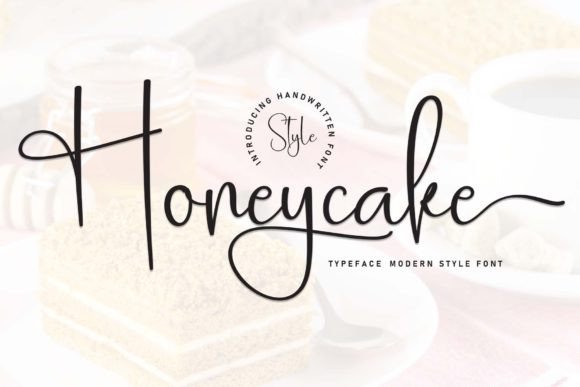
Looking to add a touch of elegance and charm to your designs? Look no further than Honeycake Font, a mesmerizing script font created by andikastudio. This lovely and timeless handwritten font is the perfect choice for creating eye-catching logos, branding, and quotes.
With Honeycake Font, every letter is crafted with a unique and beautiful touch, breathing life into your designs. Its captivating curves and flowing strokes exude a sense of sophistication and grace, making it the ideal companion for any project that aims to leave a lasting impression.
Whether you're a professional designer or an aspiring creative, Honeycake Font will elevate your work to new heights. Imagine the impact of a logo that effortlessly marries elegance and playfulness, or the power of a quote that leaps off the page, stirring emotions in its readers. This font has the ability to transform your creations into visual masterpieces.
Honeycake Font's versatility knows no bounds. It seamlessly adapts to various design styles, effortlessly blending with both modern and traditional aesthetics. Whether you're working on a website, a print advertisement, or a social media post, this font will effortlessly complement your vision, adding a touch of magic to your design.
But Honeycake Font doesn't just offer beauty, it also boasts functionality. Its readability ensures that your message is conveyed with clarity, captivating your audience and leaving a lasting impact. Its carefully crafted characters ensure that even in-line type is legible, making it the perfect choice for any project that demands attention to detail.
Imagine the possibilities of using Honeycake Font in your branding. Its timeless elegance will instantly elevate your company's image, leaving a memorable impression on your target audience. Whether it's on your website, business cards, or product packaging, this font will speak volumes about your brand's values and personality.
In conclusion, Honeycake Font is not just a font, it's a work of art. Its unique and beautiful touch, combined with its versatility and readability, make it the perfect choice for designers and creatives looking to make a statement. So go ahead, download Honeycake Font today and let your designs come alive with elegance and charm.